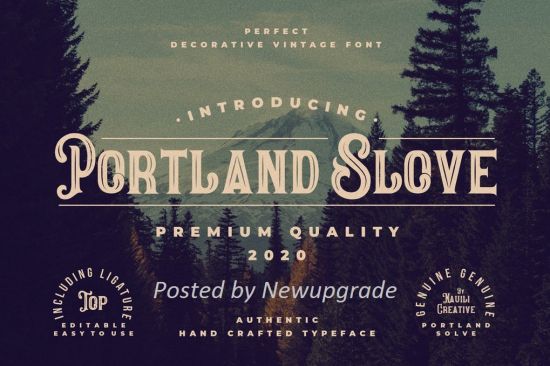
Introducing Portland Slove font. Are you looking for a bold vintage decorative font that has a western feeling? We can help! Try to download our Portland Slove font. The font is suitable to use for many vintage related occasion such as product, branding, invitation, banner, movie title, brand, event, and many more :)